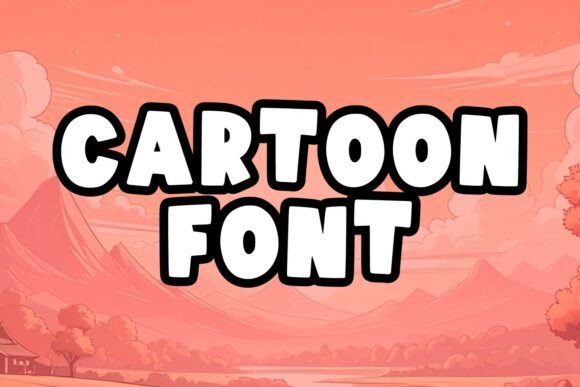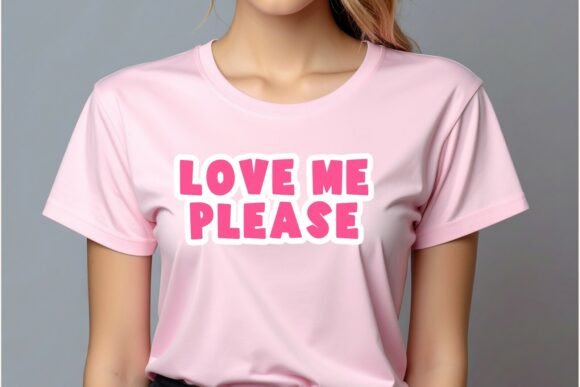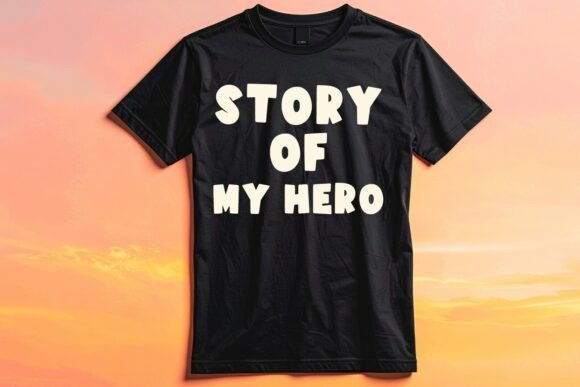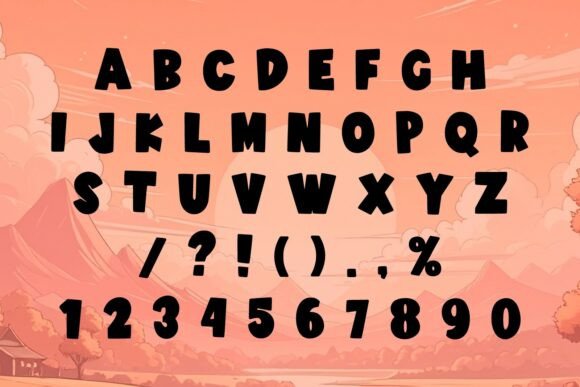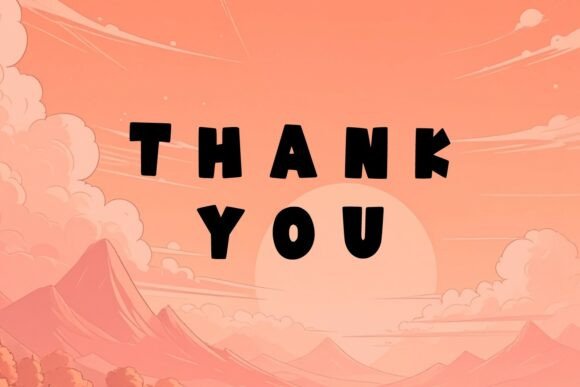
Discover the Playful Charm of Cute Stacked Font
Have you ever been working on a design project, and suddenly, you’re stuck on finding the perfect font? I recall a recent experience where I was tasked with creating a fun and engaging poster for a kids’ event. The client wanted something bold, playful, and attention-grabbing. After scouring through numerous font libraries, I stumbled upon Cute Stacked – a bold and playful display font that instantly caught my attention. Its thick stacked letterforms and fun cartoon style were exactly what I needed to bring the design to life.
A Personal Review of Cute Stacked Font
What I Love About Cute Stacked ✨
- ✅ Attention-grabbing design: Cute Stacked is perfect for designs that need to stand out, such as posters, logos, and social media graphics.
- ✅ Playful and energetic feel: The chunky shapes and friendly personality of this font bring a joyful vibe to any design.
- ✅ Versatile usage: Ideal for kids’ designs, gaming titles, stickers, merchandise, and cheerful branding projects.
- ✅ Easy to read: Despite its bold and chunky design, Cute Stacked remains surprisingly legible, even at smaller sizes.
- ⚠️ Limited use for body text: Due to its bold and chunky design, Cute Stacked is best suited for headlines and titles, rather than body text.
- ⚠️ May not work well for formal designs: The playful and cartoonish style of Cute Stacked might not be suitable for formal or professional designs.
The Designer Inspiration Behind Cute Stacked
Cute Stacked was designed with the intention of creating a font that embodies a playful and energetic personality. The designer aimed to craft a font that would be perfect for designs that require a fun and attention-grabbing look. Inspired by childhood memories of cartoons and playful illustrations, Cute Stacked brings a sense of joy and whimsy to any design.
| Font Name | Cute Stacked Font |
Q: What type of designs is Cute Stacked best suited for?
A: Cute Stacked is ideal for kids’ designs, posters, logos, stickers, merchandise, social media graphics, gaming titles, and cheerful branding projects.
Q: Is Cute Stacked easy to read?
A: Despite its bold and chunky design, Cute Stacked remains surprisingly legible, even at smaller sizes.